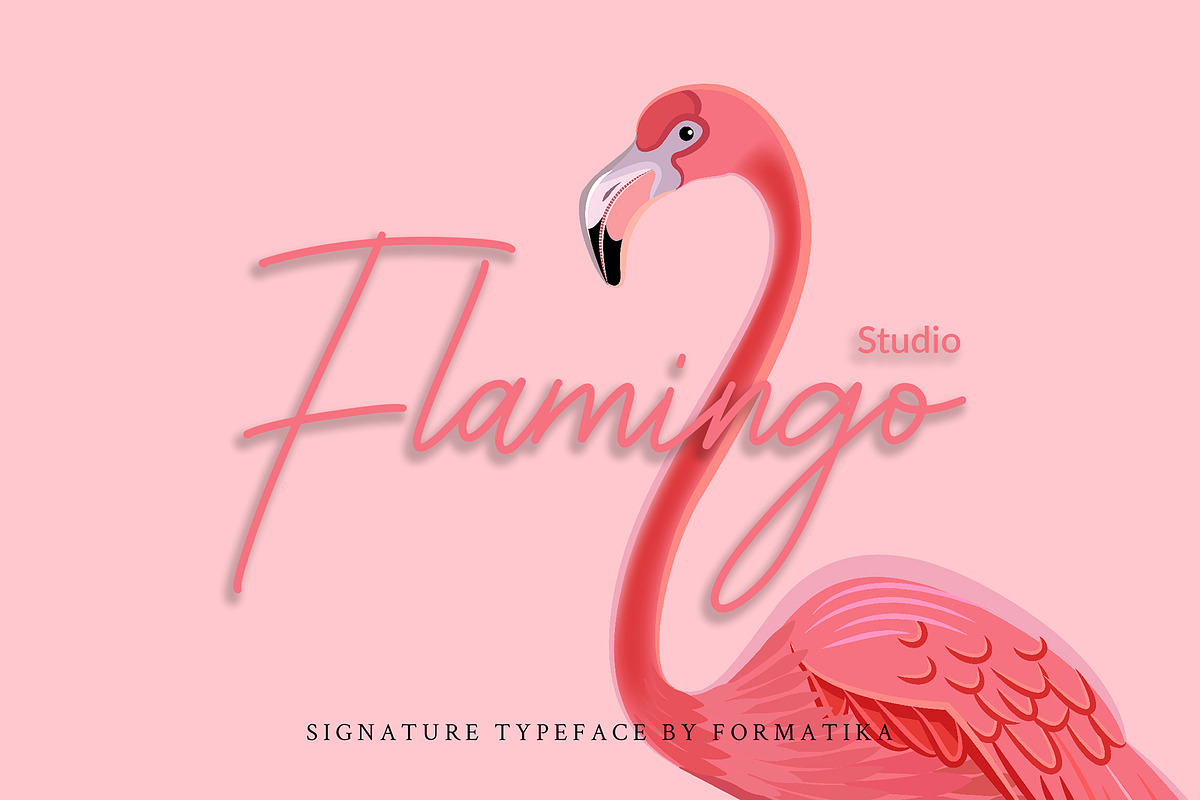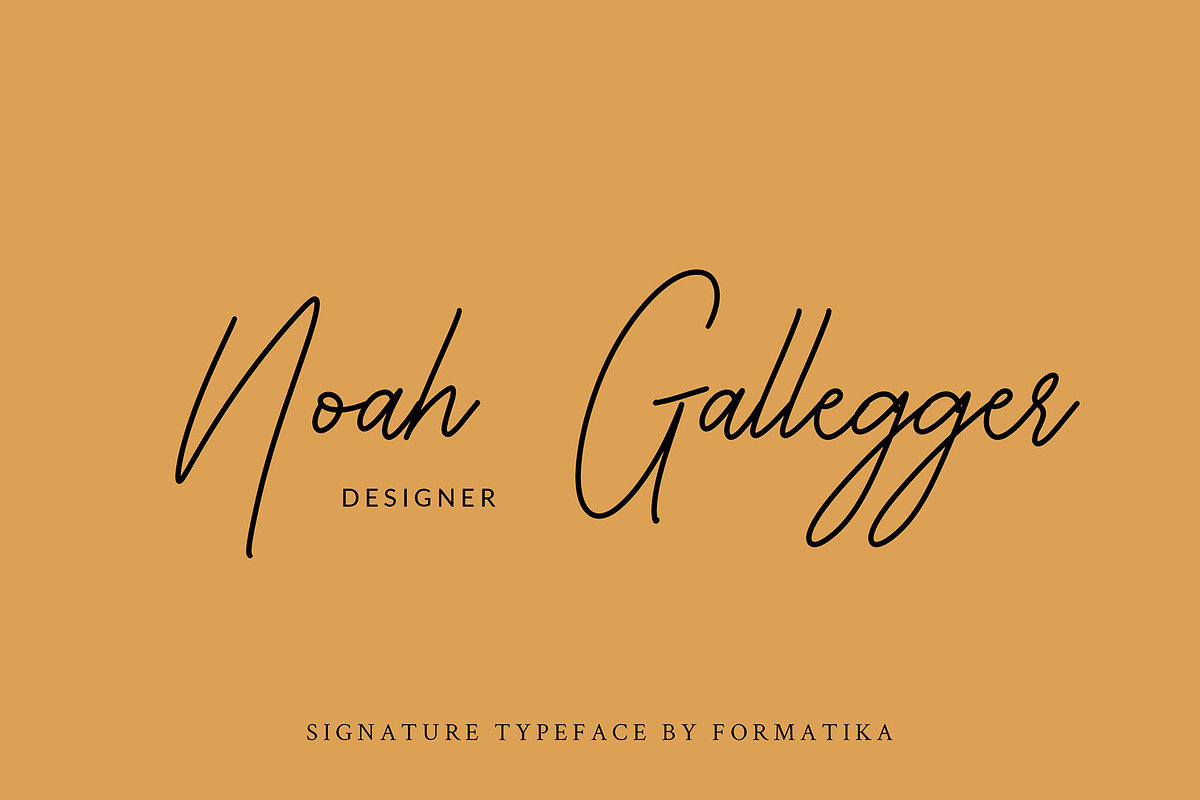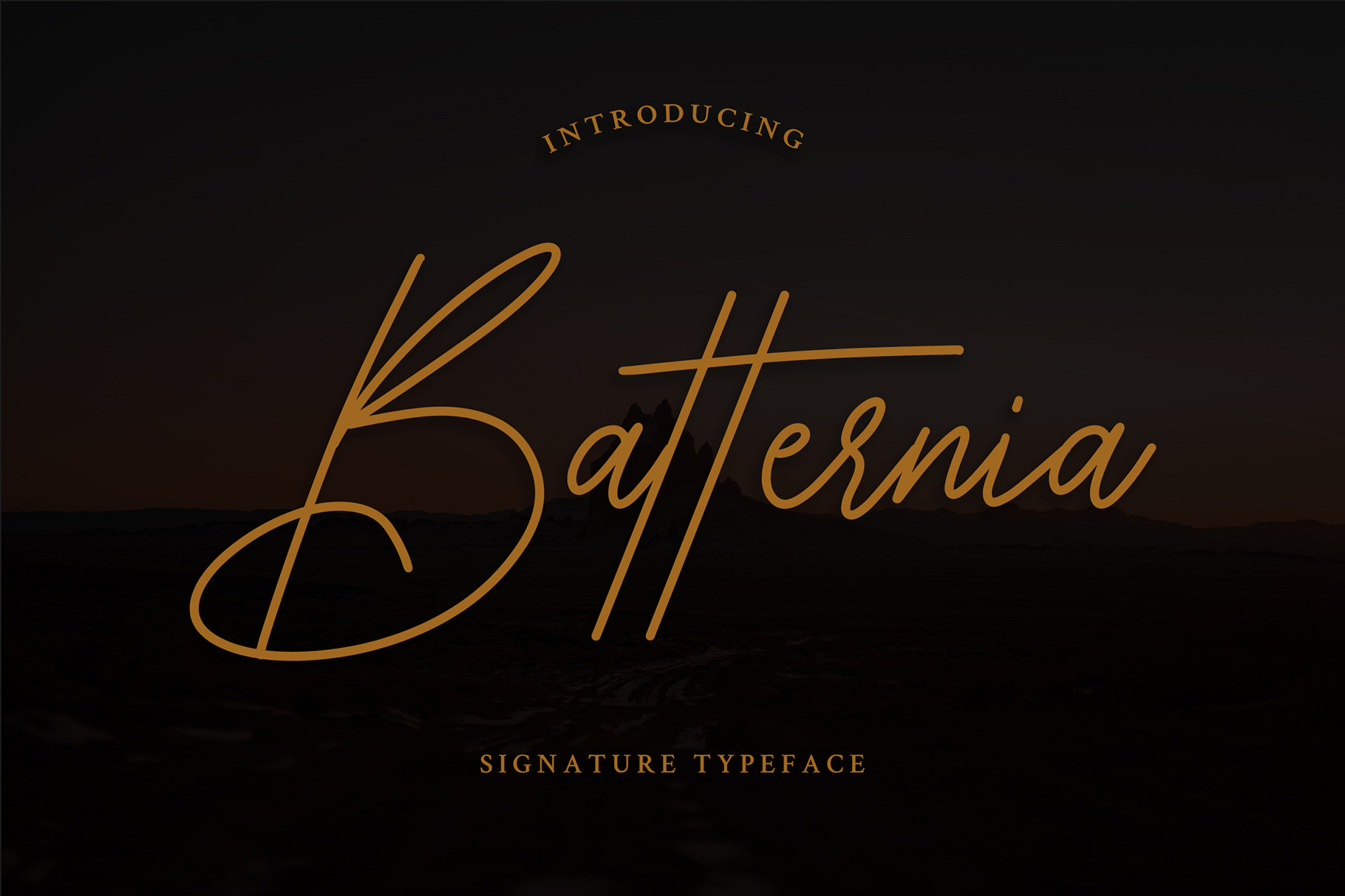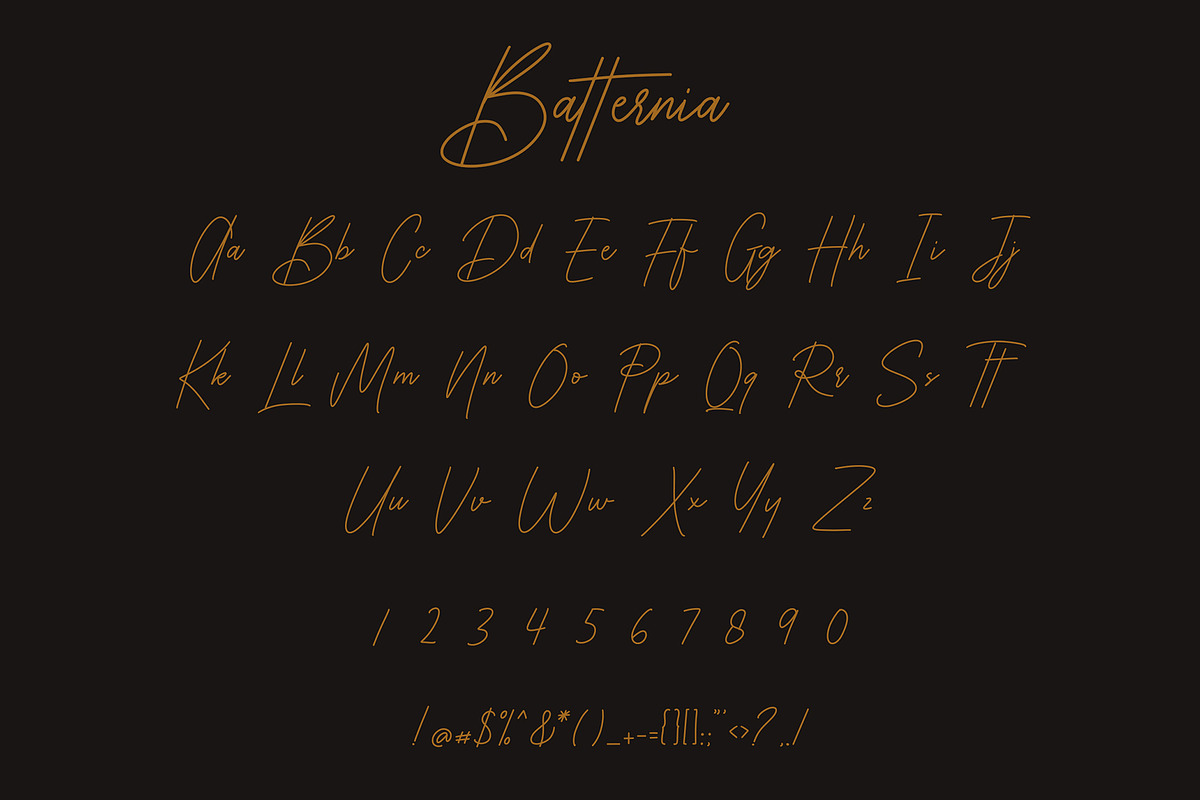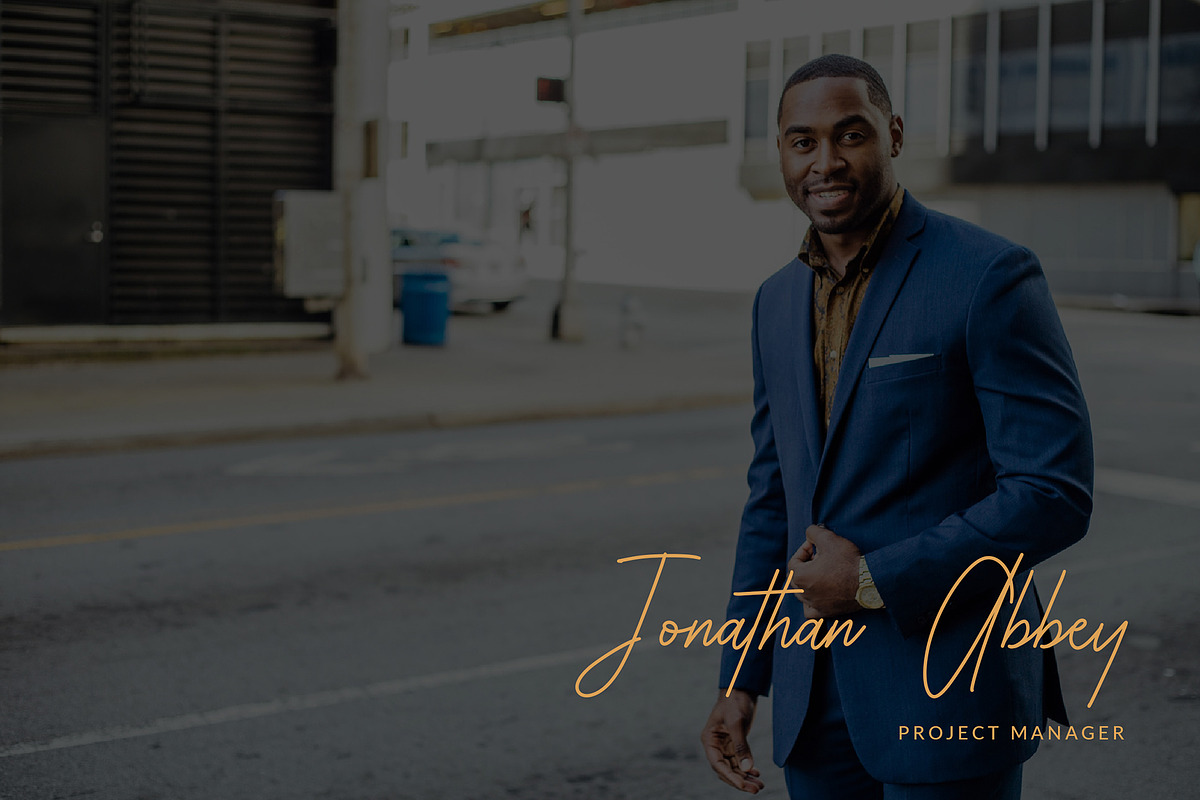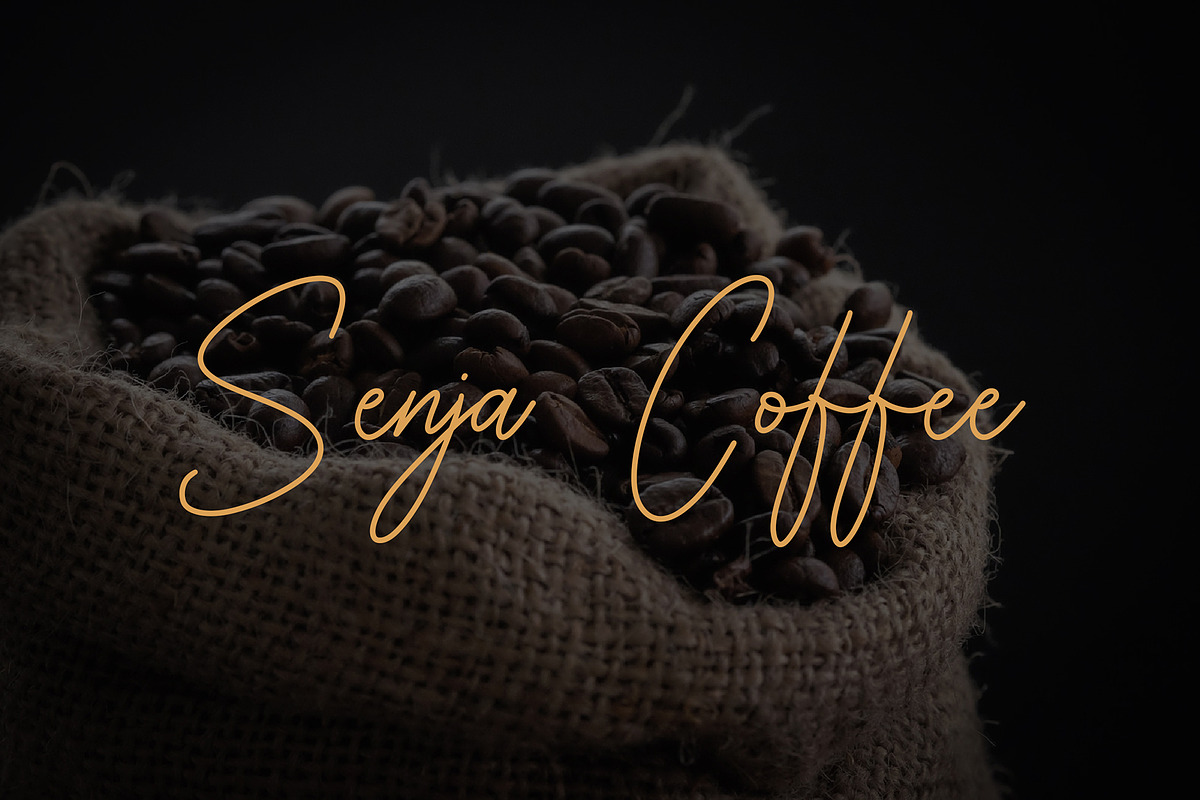
Batternia Handwritten Typeface
Batternia is an exciting handwritten typeface with signature style. Fall in love with its elegantly playful nature!
Batternia is perfect for branding projects, logo, wedding designs, social media posts, advertisements, product packaging, product designs, label, photography, watermark, invitation, stationery and any projects.